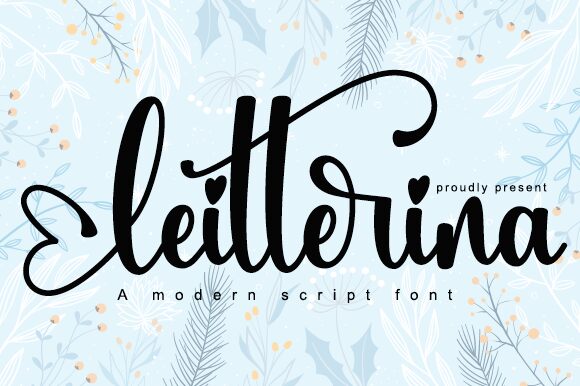
Leitterina
Leitterina font designed by Danar Nugroho is a free handwritten font with an artistic flair. This romantic modern script has elegant and whimsical decorative elements that give this typeface feminine and expressive touches. Suitable for designers looking for a font that stand out of the box to create beautiful headings, titles, or regular text.
This font is ideal for designing exquisite wedding invites, stationary, magazine covers and titles. It can be used in crafting branding projects such as logos or packaging design ideas. Sozial media posts, advertisements, book covers can also benefit from using the amazing Leitterina in their typography.